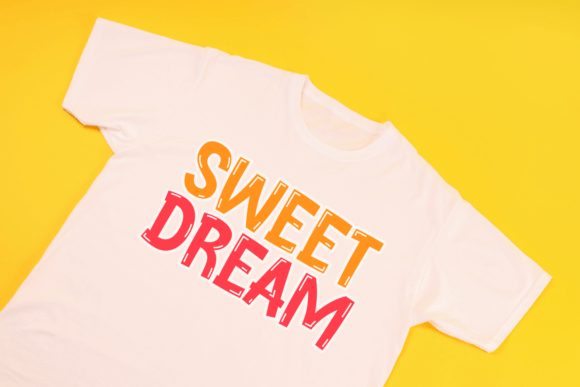
Destiny Bubble Font: The Fun and Unique Display Font for Kids and School Themes
Are you looking for a font that can add a touch of fun and playfulness to your designs? Look no further than the Destiny Bubble Font. This uniquely designed display font is perfect for kids or school themes and can be used for a wide range of projects, from crafting and restaurant menus to digital designing and greeting card making.
What Makes Destiny Bubble Font Special?
- Unique Design: The Destiny Bubble Font has a distinctive bubble-like design that sets it apart from other fonts. Its fun and playful style makes it perfect for kids and school themes.
- Versatile: This font can be used for a wide range of projects, including crafting, restaurant menus, digital designing, presentations, and greeting card making.
- Easily Customizable: The Destiny Bubble Font can easily be matched with an incredibly large set of projects, making it a versatile addition to your creative ideas.
10 Creative Ways to Use Destiny Bubble Font
- Crafting: Use the Destiny Bubble Font to add a touch of fun and playfulness to your crafting projects, such as making DIY cards, gift tags, or scrapbooking.
- Restaurant Menus: Add a playful touch to your restaurant menus with the Destiny Bubble Font. It’s perfect for kid-friendly menus or for creating a fun and casual atmosphere.
- Digital Designing: Use the Destiny Bubble Font in your digital designs, such as creating social media graphics, blog posts, or website headers.
- Presentations: Add some fun and personality to your presentations with the Destiny Bubble Font. It’s perfect for educational presentations or for creating engaging slides.
- Greeting Card Making: Use the Destiny Bubble Font to create fun and playful greeting cards for kids or for special occasions.
- Party Invitations: Create fun and playful party invitations with the Destiny Bubble Font. It’s perfect for kids’ birthday parties or for other celebrations.
- Signage: Use the Destiny Bubble Font for creating eye-catching signage, such as for kids’ events or for promoting school activities.
- Social Media Graphics: Add a touch of fun and playfulness to your social media graphics with the Destiny Bubble Font.
- Blog Posts: Use the Destiny Bubble Font to add some personality to your blog posts, especially those targeting kids or a younger audience.
- Educational Materials: The Destiny Bubble Font is perfect for creating educational materials, such as worksheets, activity sheets, or study guides.
The Benefits of Using Destiny Bubble Font
- Grabs Attention: The Destiny Bubble Font is designed to grab attention and add a touch of fun and playfulness to your designs.
- Perfect for Kids and School Themes: This font is uniquely designed for kids and school themes, making it perfect for educational materials, kids’ events, and other related projects.
- Easily Customizable: The Destiny Bubble Font can easily be matched with an incredibly large set of projects, making it a versatile addition to your creative ideas.
- Increases Engagement: The fun and playful style of the Destiny Bubble Font can increase engagement and make your designs more memorable.
Tips and Tricks for Using Destiny Bubble Font
- Pair it with Other Fonts: Experiment with pairing the Destiny Bubble Font with other fonts to create a unique and visually appealing design.
- Use it for Headings: Use the Destiny Bubble Font for headings and titles to add a touch of fun and playfulness to your designs.
- Experiment with Colors: Try out different colors and color combinations to add an extra layer of fun and personality to your designs.
- Keep it Simple: Don’t overcomplicate your design. Keep it simple and let the Destiny Bubble Font do the talking.
The Destiny Bubble Font is a fun and unique display font that is perfect for kids and school themes. Its versatility and customizability make it a great addition to any design project. With its attention-grabbing style and playful personality, the Destiny Bubble Font is sure to make your designs stand out. So why not give it a try and see how it can elevate your creative ideas?